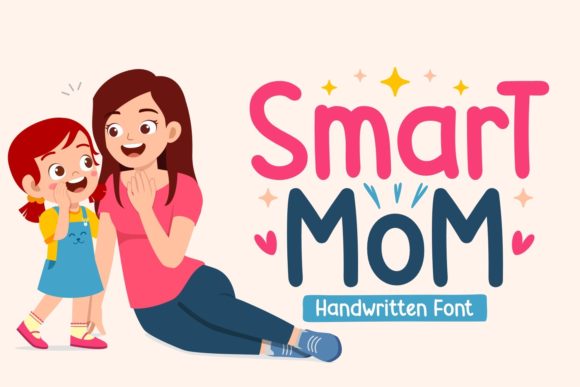
Unlock the Heartfelt Charm: Introducing Smart Mom Font
Embrace the beauty of heartfelt expression with Smart Mom Font, a captivating script font designed to infuse your projects with warmth and affection. Crafted with meticulous care by Creative Fabrica Fonts, this exquisite typeface radiates love and appreciation, making it the perfect choice for conveying your deepest emotions.
Step into a world of delightful handwritten characters, lovingly rendered with smooth edges and enchanting curves. Each letter dances across the page, evoking a sense of genuine connection and intimacy. Smart Mom Font's playful personality shines through in its charming details, adding a touch of whimsy and joy to your designs.
Capture the Essence of Love:
Unleash the power of love with Smart Mom Font. Let your words take flight, whether you're creating heartfelt messages for your Valentine, expressing gratitude to your cherished mother, or celebrating the bond between father and child. This versatile font adapts seamlessly to a multitude of projects, becoming an indispensable tool for expressing your affection.
From heartfelt cards and invitations to heartwarming posters and social media graphics, Smart Mom Font transforms your creations into expressions of pure emotion. Its innate ability to capture the essence of love makes it the ideal choice for crafting designs that resonate with your audience, leaving a lasting impression that speaks volumes.
Ignite Your Creativity:
Open the door to endless creative possibilities with Smart Mom Font. Its inherent charm and adaptability make it a versatile font, ready to enhance a wide range of projects. Whether you're a seasoned designer or just starting your creative journey, Smart Mom Font empowers you to express yourself authentically and effectively.
Embark on a creative adventure, crafting stunning logos that exude warmth and personality. Create eye-catching social media posts that captivate your audience with their emotional appeal. Design memorable invitations and greeting cards that convey your heartfelt sentiments with grace and elegance.
The Power of Connection:
In a world where genuine connection is more valuable than ever, Smart Mom Font emerges as a powerful tool for forging meaningful bonds. Its ability to convey heartfelt emotions transcends language barriers, allowing you to communicate your love and appreciation to people from all walks of life.
Share the joy of love with family and friends, near and far. Create designs that inspire, uplift, and bring people together. With Smart Mom Font, you have the power to make a positive impact on the world, one heartfelt message at a time.